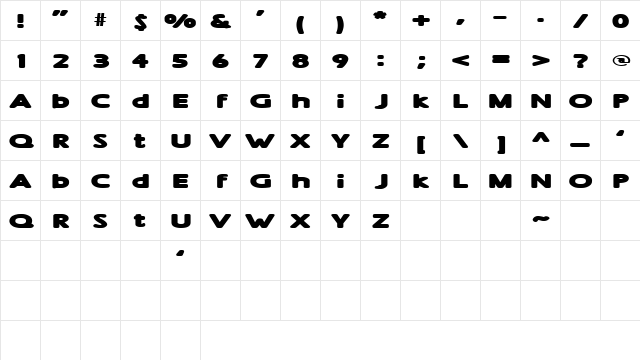
Sham ExtraBold
Design Context for Sham
Sham is a composed and adaptable typeface that performs quietly and consistently across a wide range of design contexts. Its bold stroke weight gives it real presence on the page.
Pro Tip: Use Sham in both headline and body roles to test its range before committing to a single application.